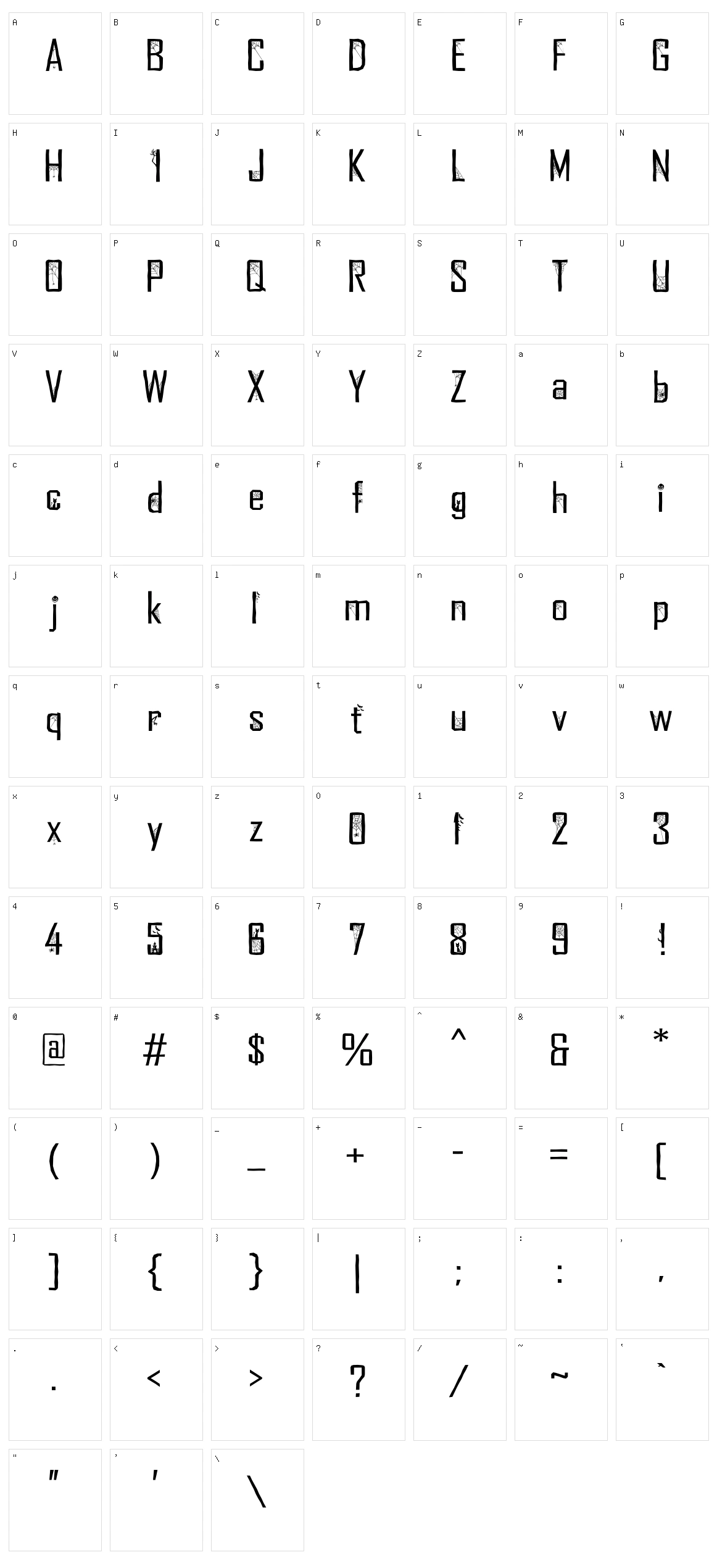
The free font Ghost Nest is carefully designed by Display Studio, showcasing a thoughtful balance of creativity and usability and falls under the Halloween font style. When you download the ZIP file, it contains only 238.3 KB of font files, making it lightweight and quick to download. Please review the license details below to understand permitted usage and distribution rights. If license information is not available, we recommend using this font for personal projects only or contacting the author directly for commercial usage permissions.